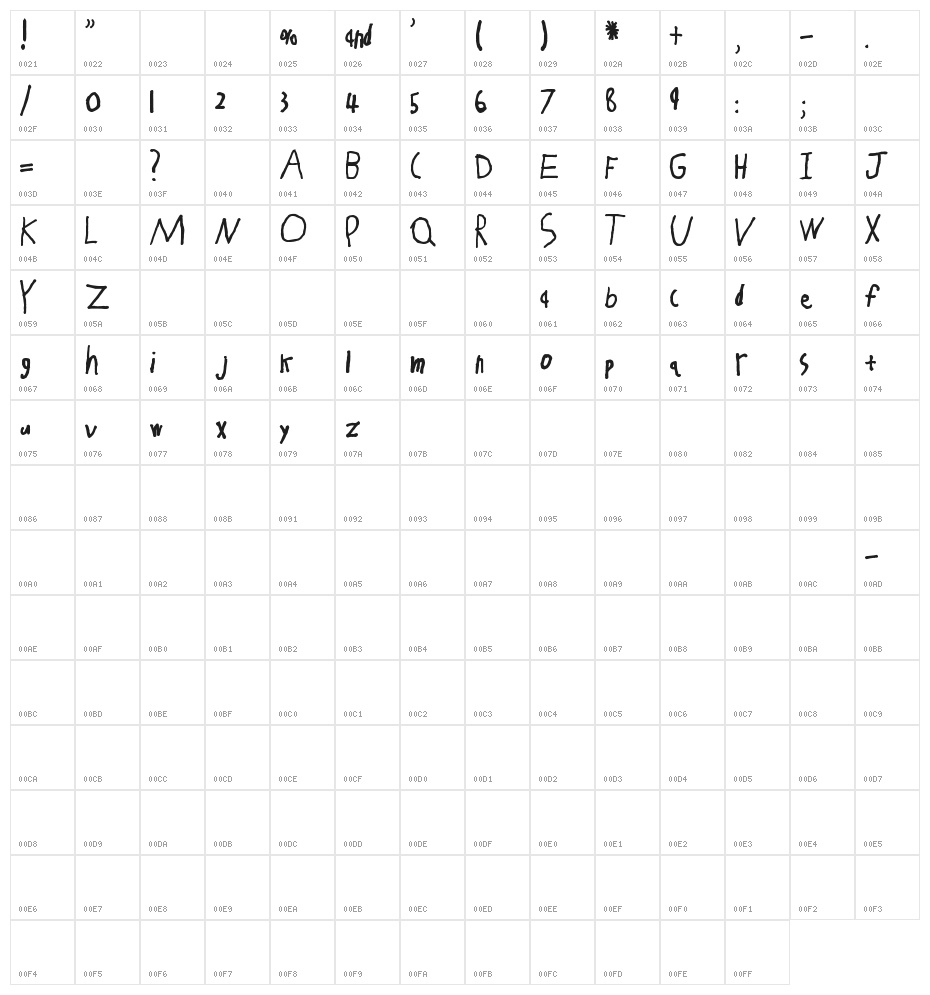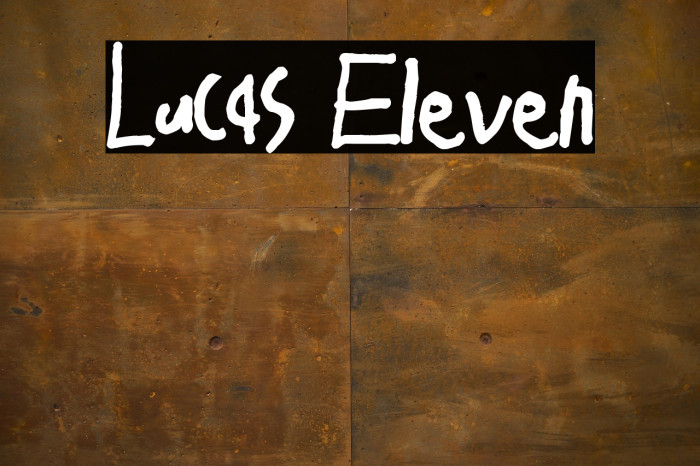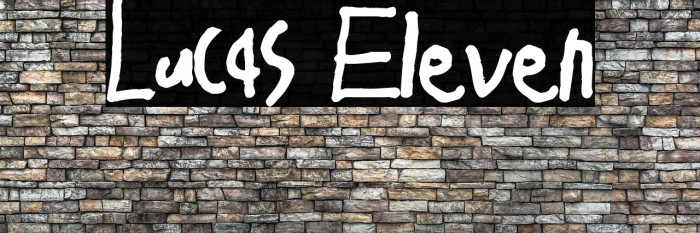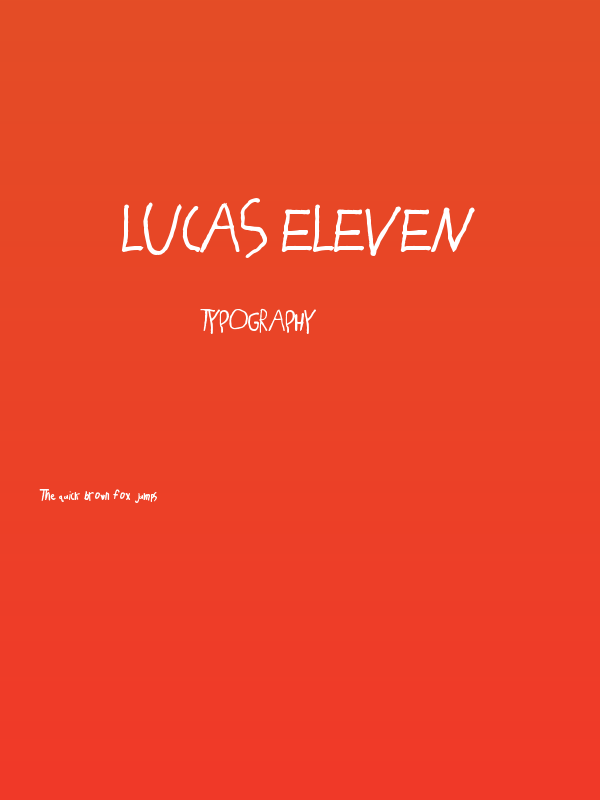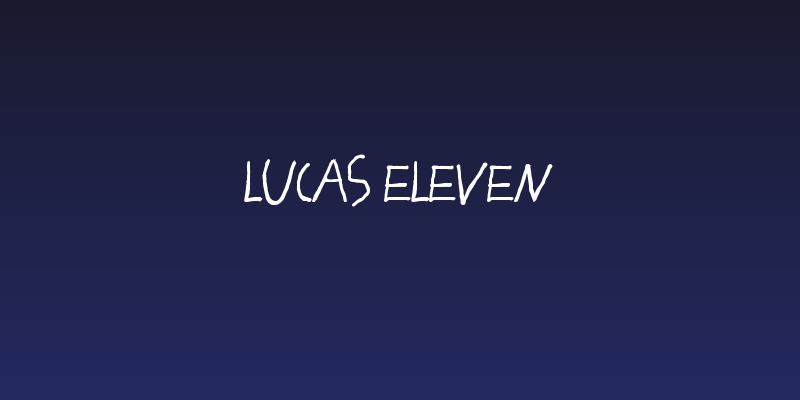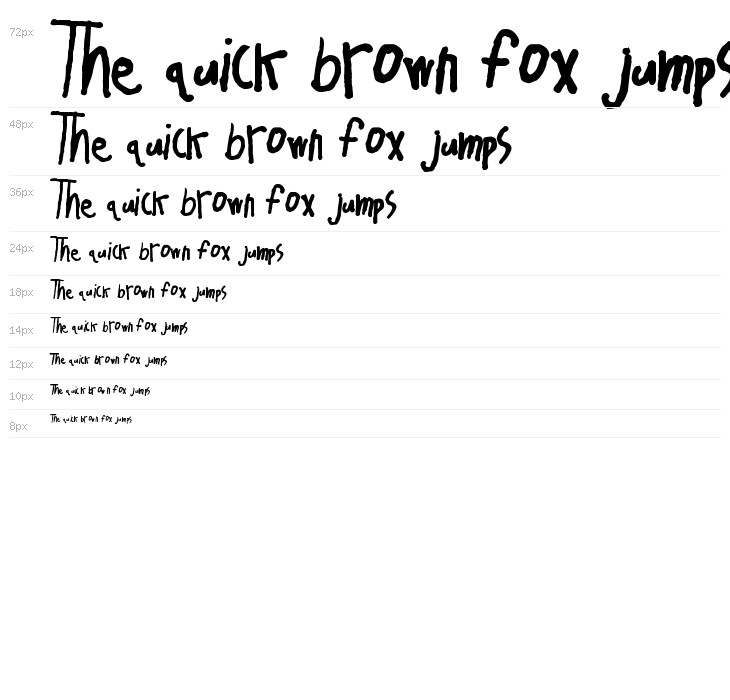
Lucas Eleven Font
Lucas Eleven Description
A playful, handwritten font with irregular strokes and a casual appearance.
| Use Case | Headlines, Informal text |
| Proposed Projects | Greeting cards, informal invitations, children's books. |